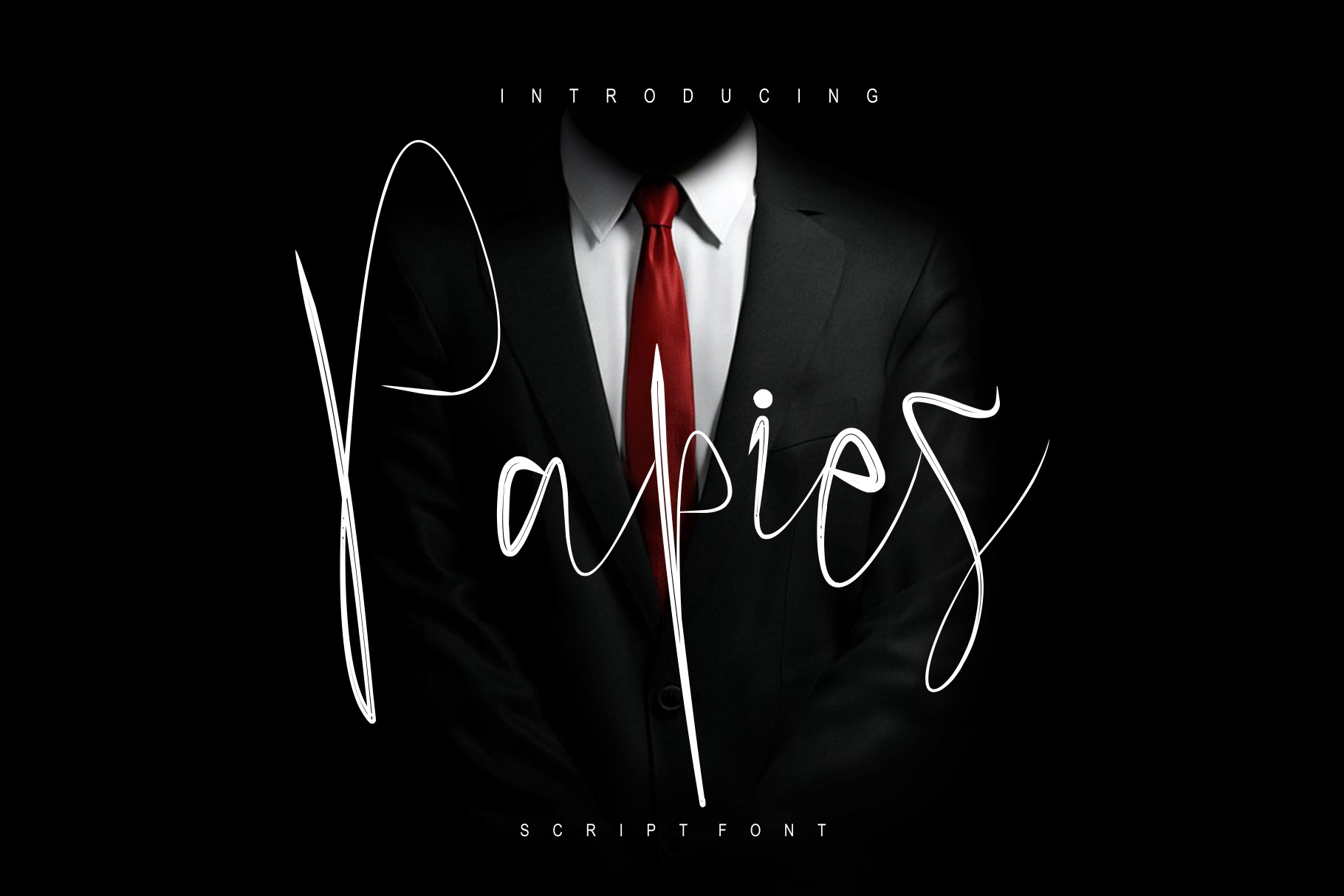
Papies Script Font
Papies, a lovely modern script that bring luxury feel. The natural hand writing script is suitable for you who needs a typeface for branding,headline, logotype, apparel, invitation, punctuations, packaging, advertising etc. This typeface is comes in uppercase, lowercase, symbols & numerals, etc